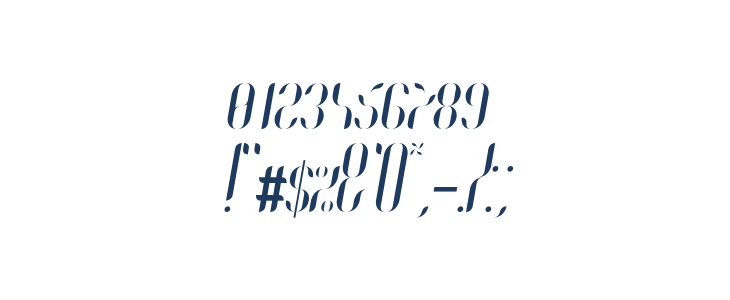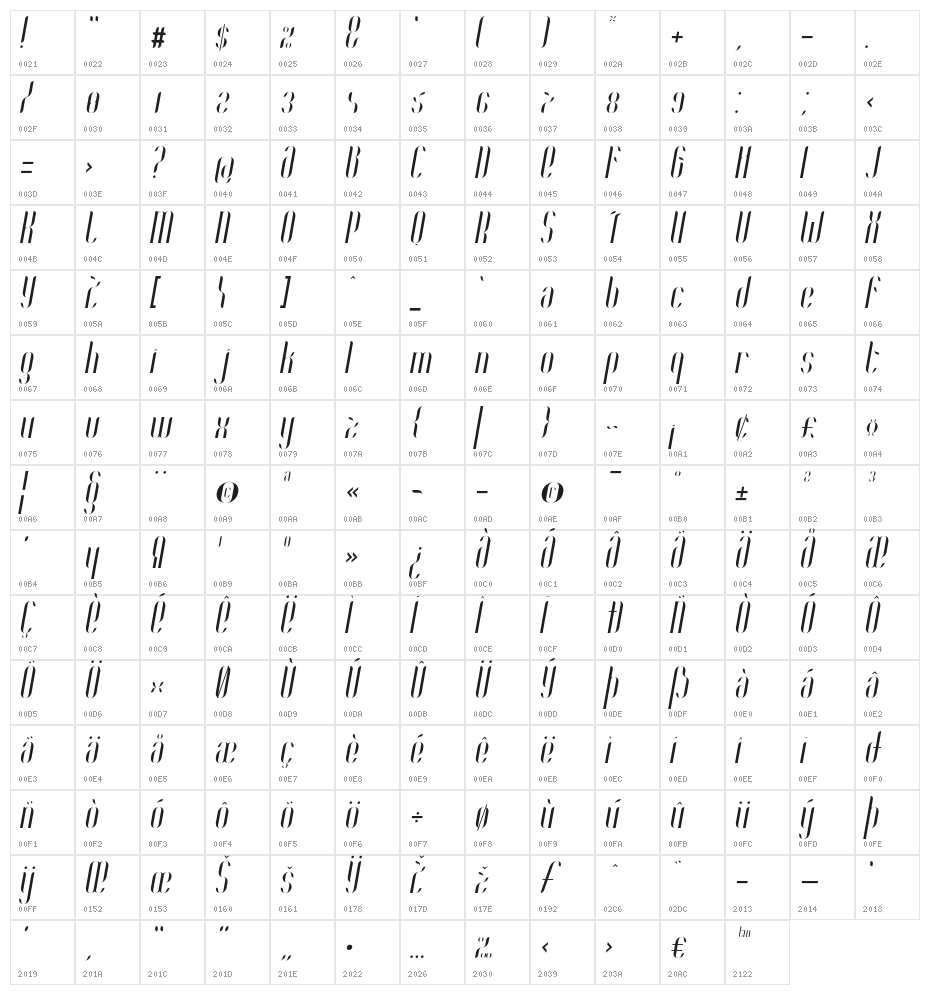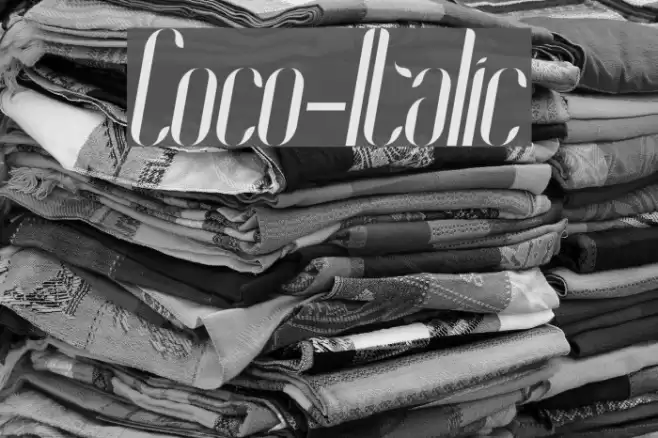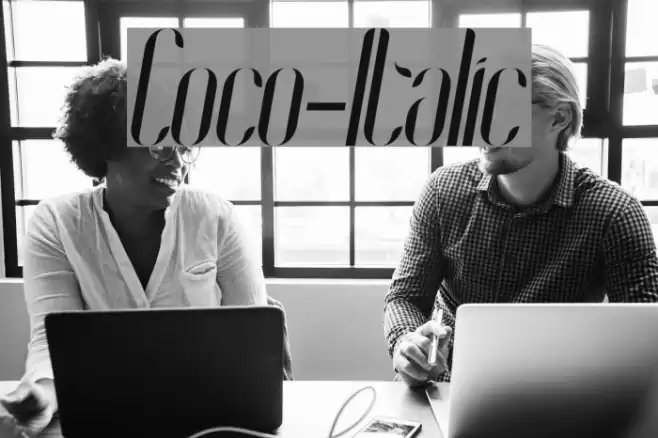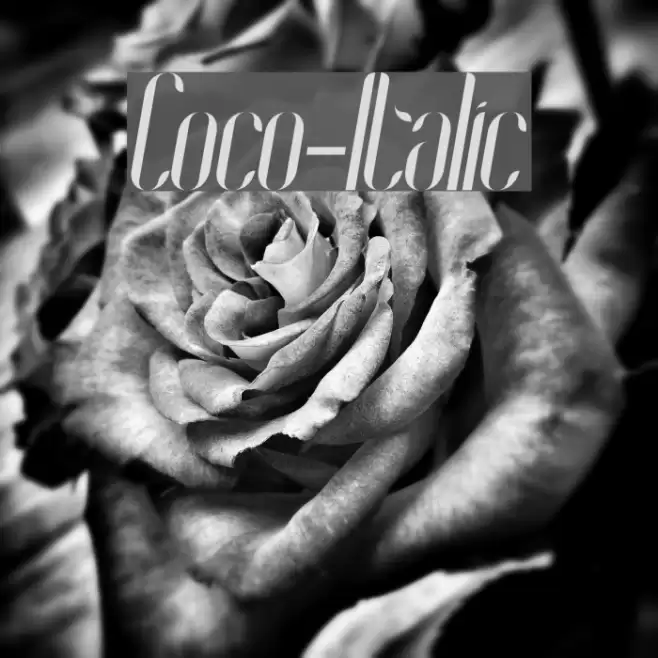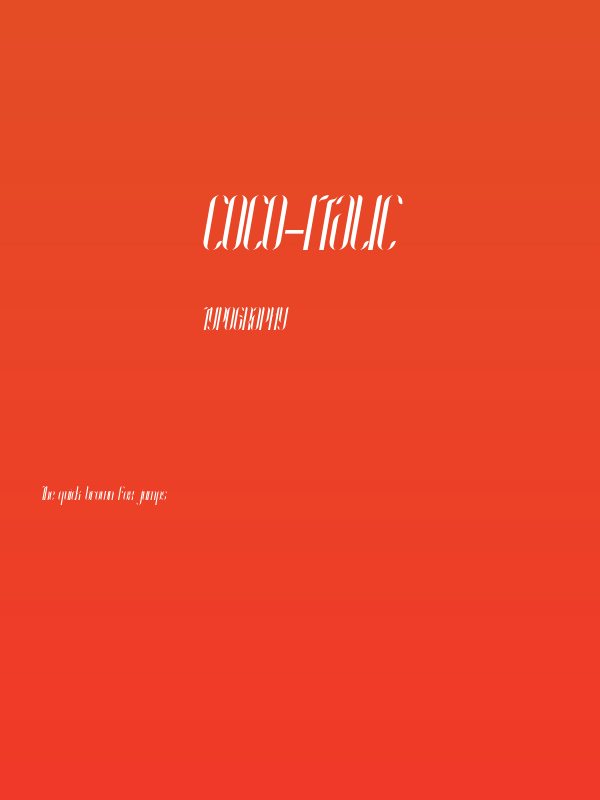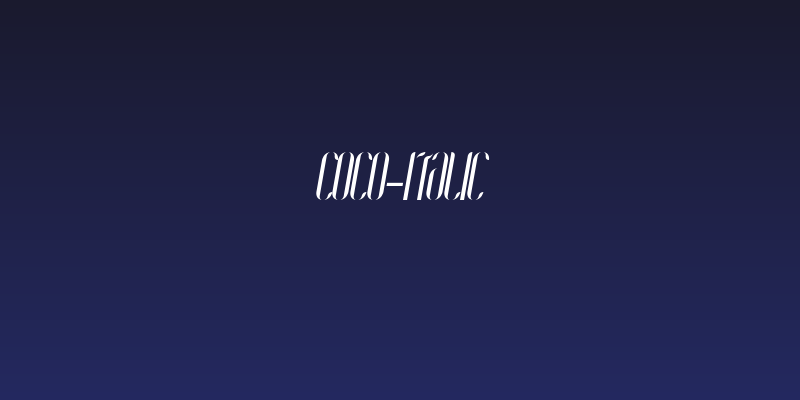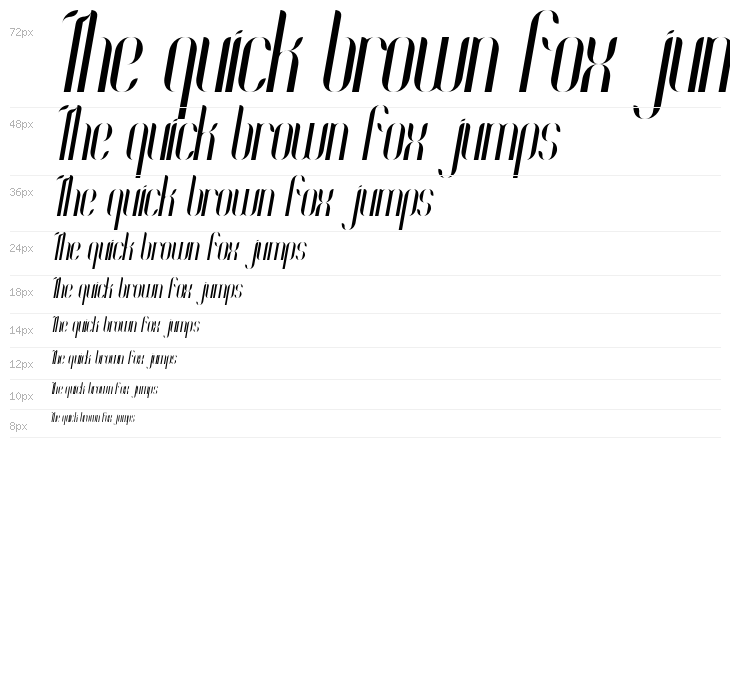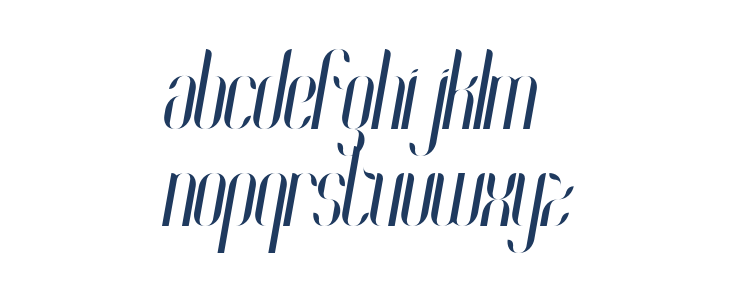
Coco-Italic Font
Coco-Italic Description
This font features a sleek and modern italic style with a strong emphasis on vertical lines and sharp angles. The characters are elongated and slightly condensed, giving it a sophisticated and elegant appearance. The strokes are consistent in weight, providing a uniform look across all characters. The font's design incorporates a high contrast between thick and thin lines, enhancing its visual impact. It is well-suited for projects that require a contemporary and stylish touch, such as fashion branding, editorial design, and luxury product packaging.
| Proposed Projects | Ideal for fashion branding, editorial design, luxury product packaging, and stylish invitations. |